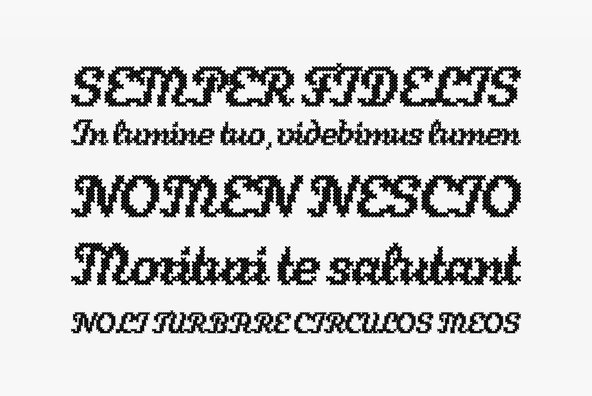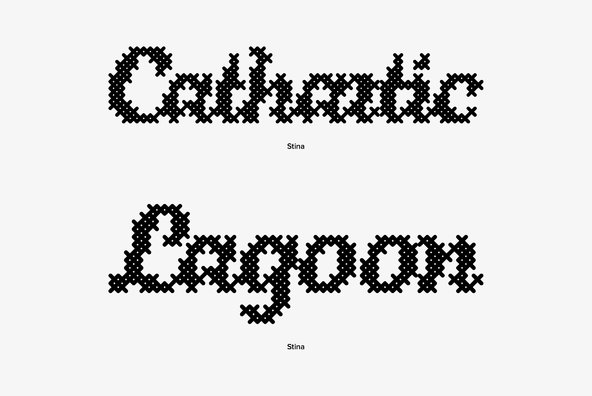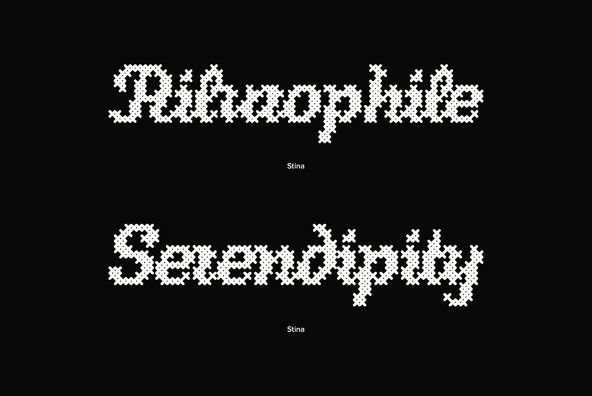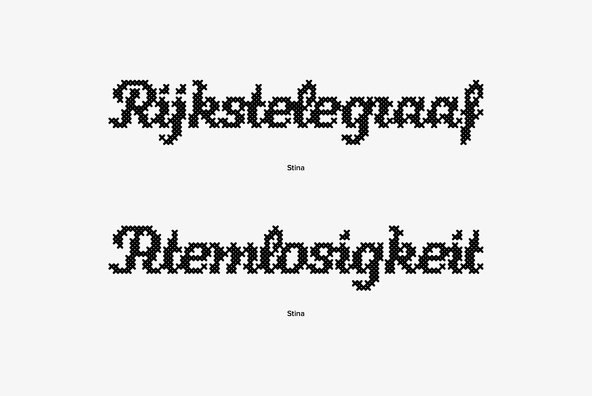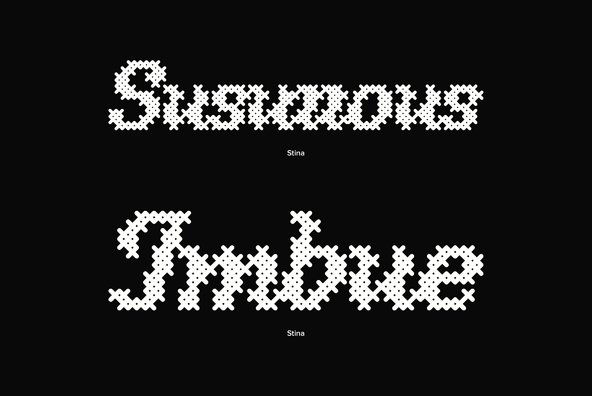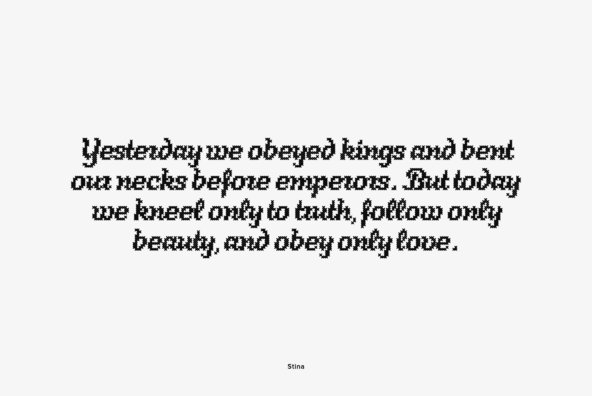
profonts Stina is an cursive font based on cross stitch pattern. It can be used in (very) tall letters but it also keeps legible in smaller sizes.
profonts Stina is an cursive font based on cross stitch pattern. It can be used in (very) tall letters but it also keeps legible in smaller sizes. Because of its joined letter pairs and ligatures it keeps the flow of a "handwritten" cursive font. So, you ever felt like stitching? - Start today.
Designed by Jörn Oelsner